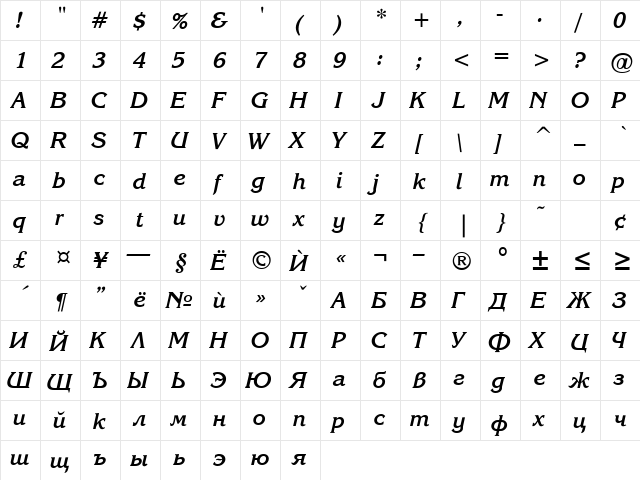
Karina Bold Italic
Design Context for Karina Typeface
Karina is a composed and adaptable typeface that performs quietly and consistently across a wide range of design contexts. The dynamic lean of this cut emphasises speed and emphasis in any layout. The heavy weight commands attention and anchors typographic hierarchies.